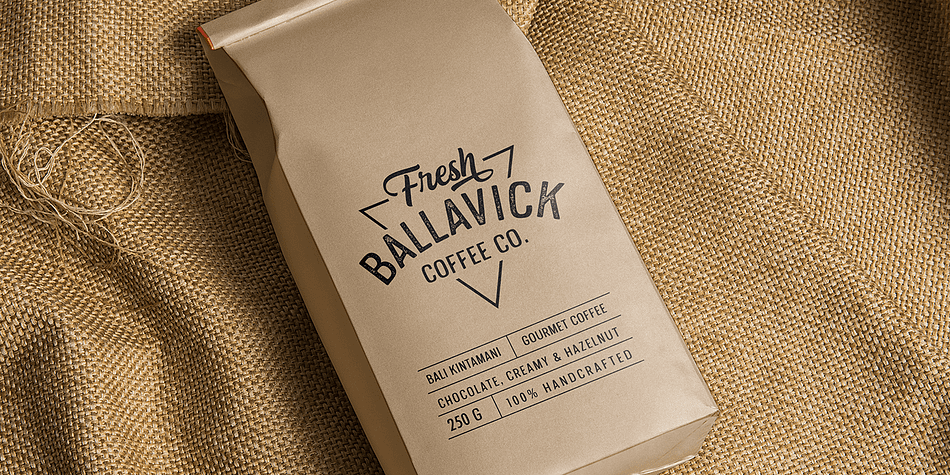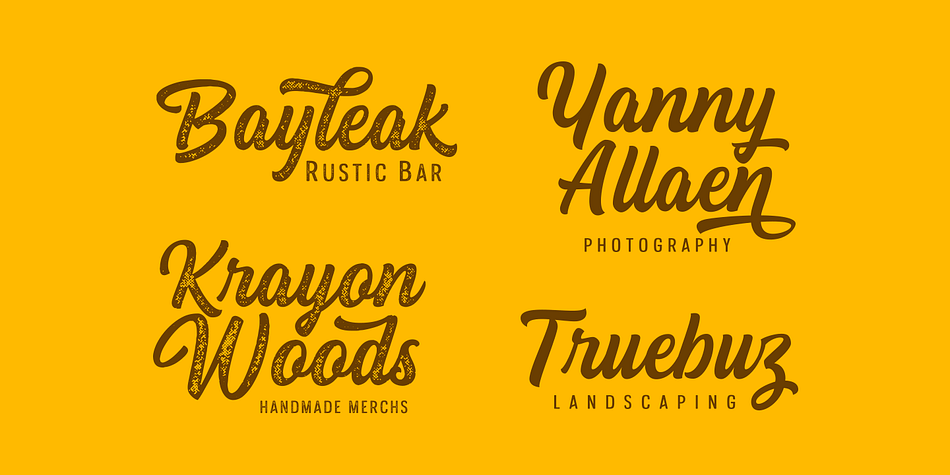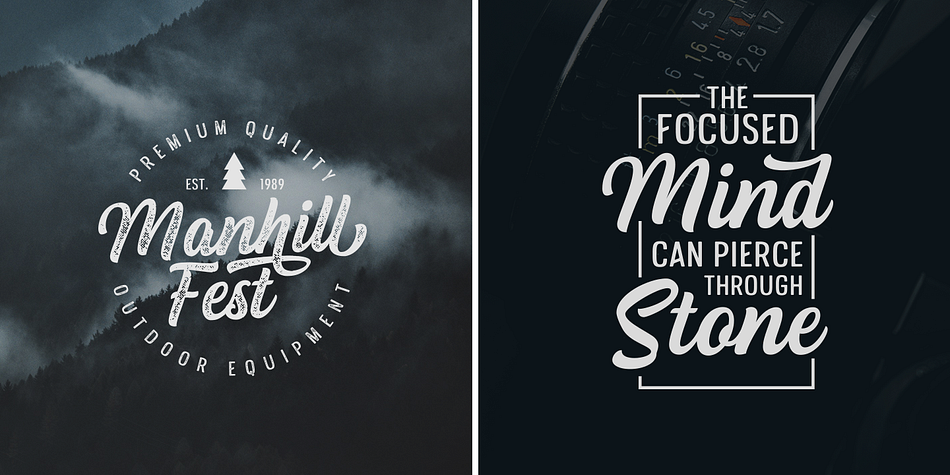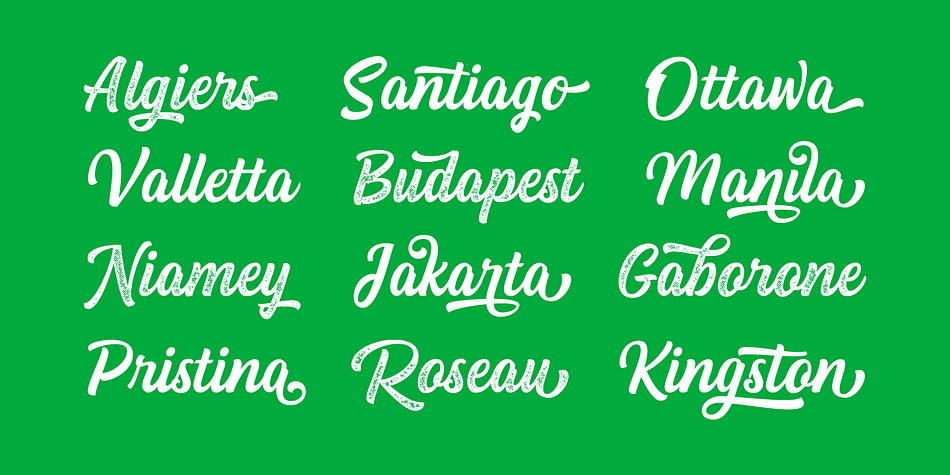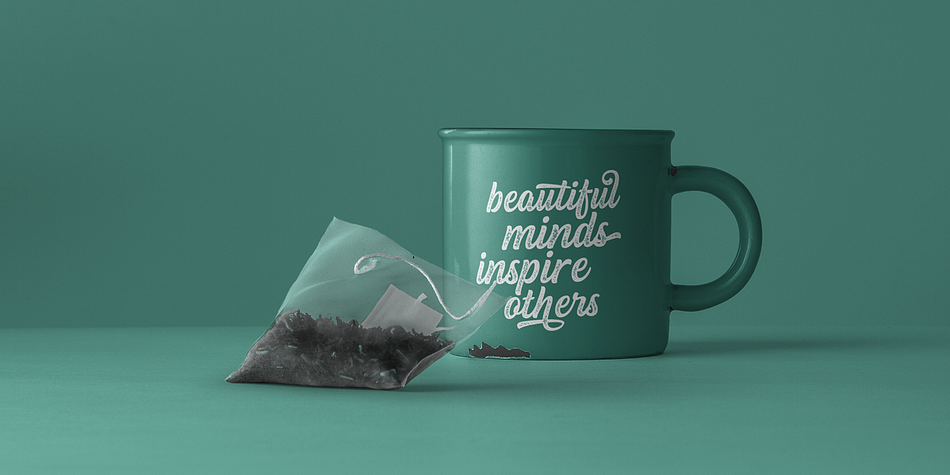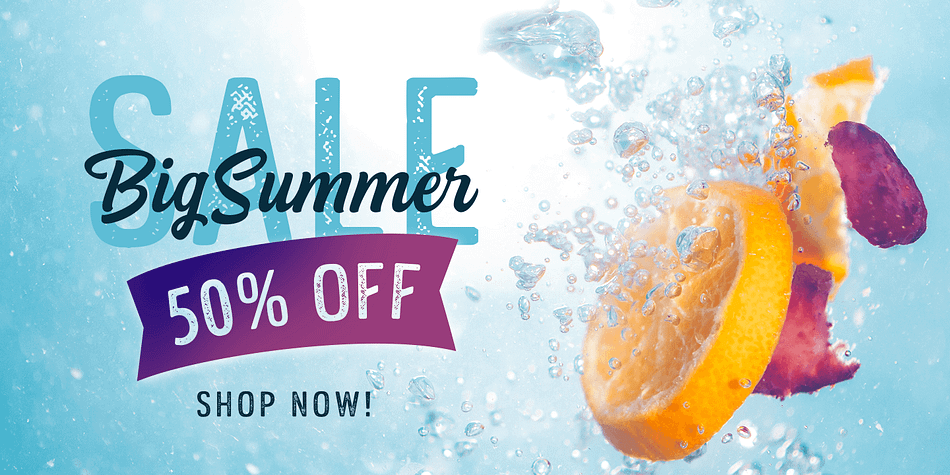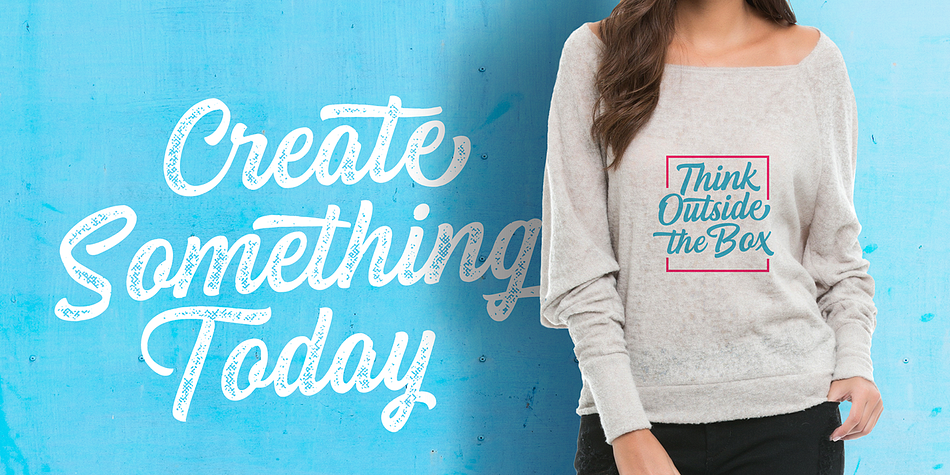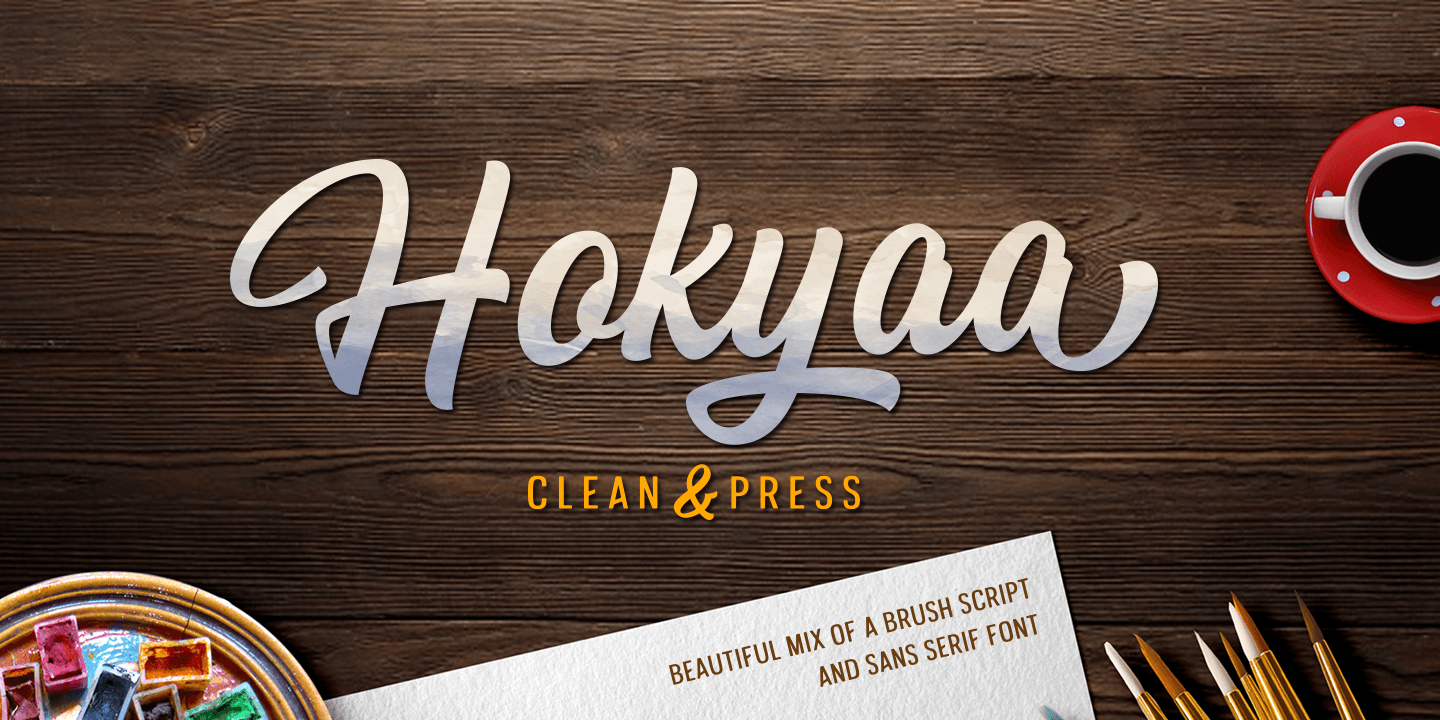
Hokyaa is a brush script, display sans and hand display font family. This typeface has four styles and was published by Locomotype.
Introducing Hokyaa, a new calligraphic font created from beautiful brush strokes. Paired with a sans serif font as a perfect pair to create a varied design. Both come in clean and press versions.
The brush script has lots of alternatives, ligatures and swashes to make it easier for you to create beautiful letters without having basic lettering knowledge.
This versatile font family will work perfectly for logotype, branding, wedding invitation, posters design, packaging, merchandise and more. It has extensive language support and is fully unicode mapped.